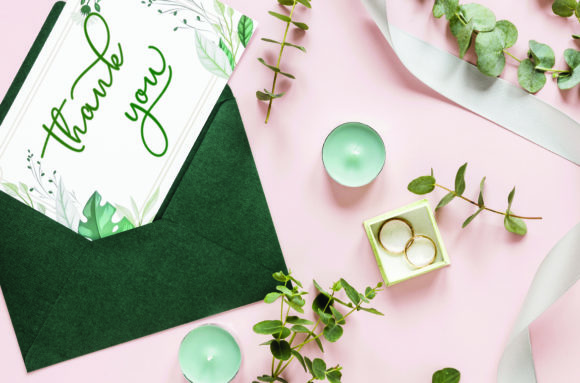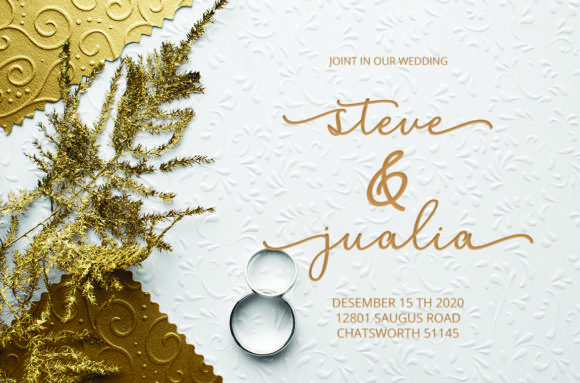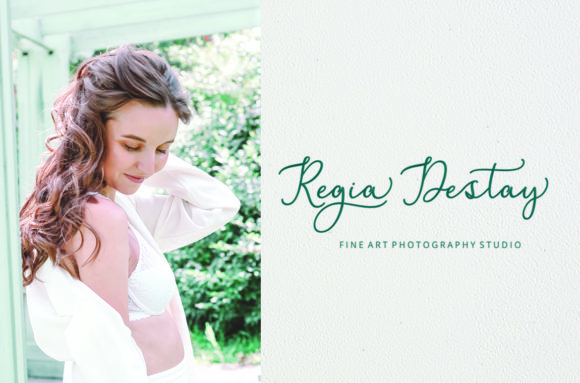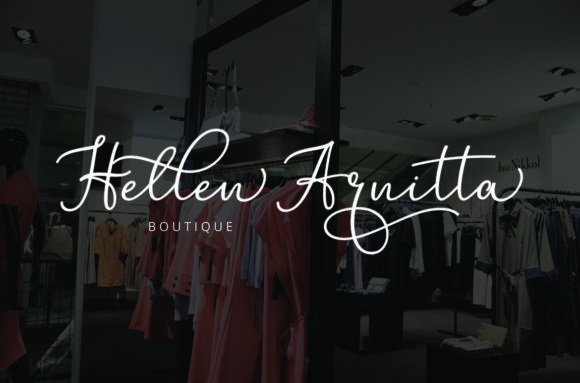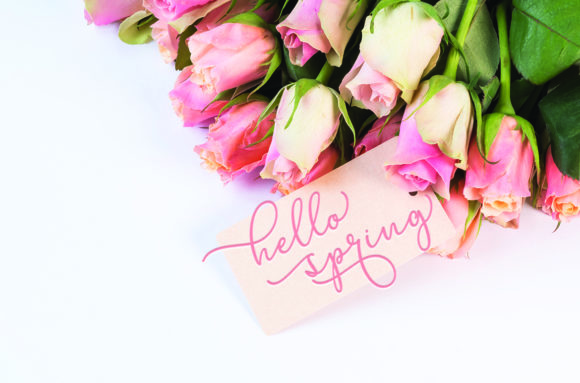
About Marshella Font
Marshella is a fresh and modern calligraphy font. It features a flowing baseline and cute ligatures. It will look great in wedding invitations, branding, social media posts and more!